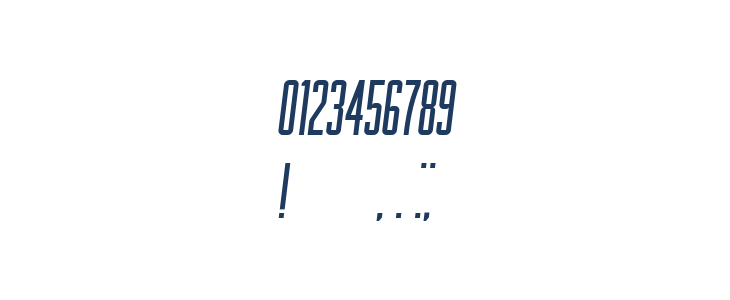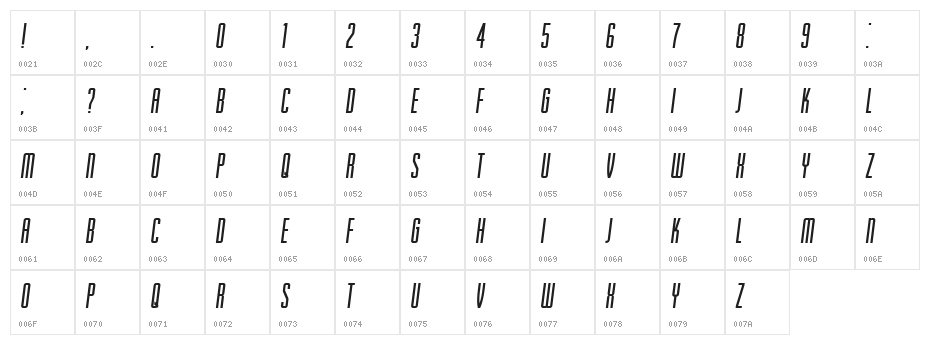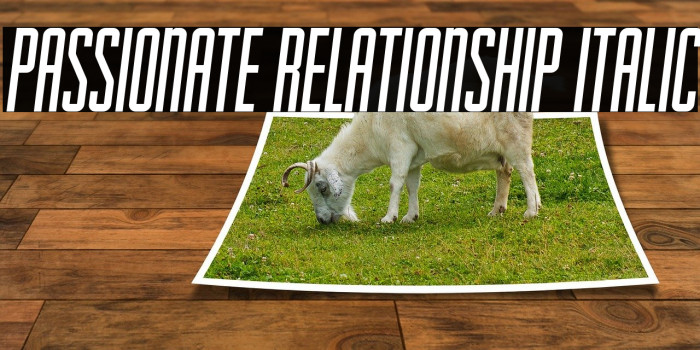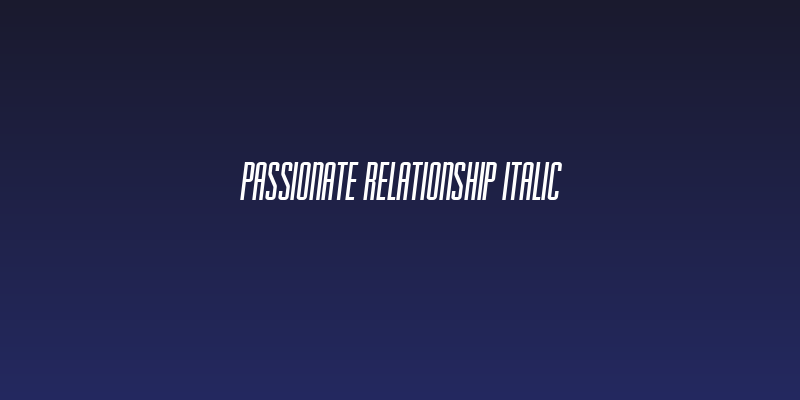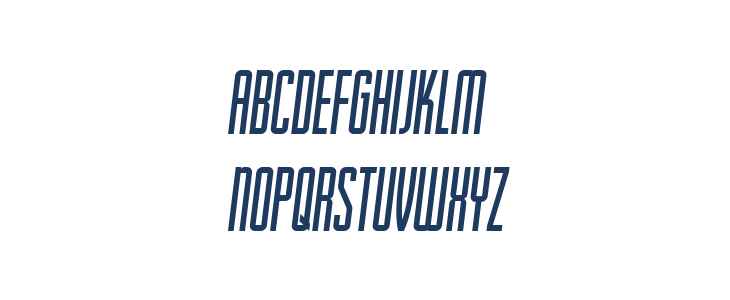
Passionate Relationship Italic Font
Passionate Relationship Italic Description
This font features a dynamic and energetic style with a strong italic slant, giving it a sense of motion and urgency. The characters are tall and narrow, with a condensed width that enhances its sleek and modern appearance. The strokes are consistent in thickness, providing a medium contrast that balances readability with style. The overall design is clean and sharp, making it suitable for impactful and attention-grabbing text. Its distinctive italic form adds a touch of elegance and sophistication, making it versatile for various design contexts.
| Proposed Projects | Ideal for sports branding, dynamic posters, modern advertising, and stylish headlines. |